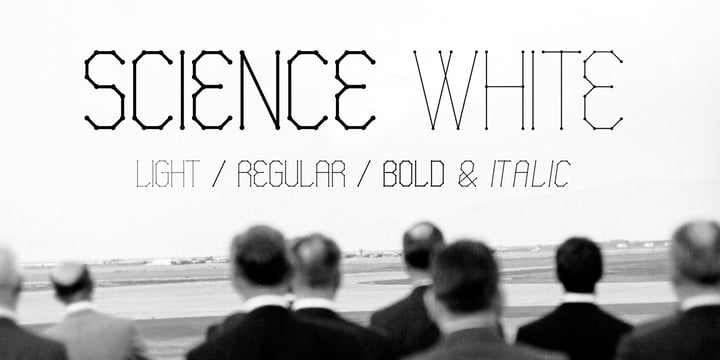
About Science White Font Family
Science White is the version of Science Noire without the spider web. Available in 3 weights + Italic. Made to match with Science Noire. Easy to use for your artworks and your common works. Science White is available in single weights or in a full package with a special price. Last but not least we launch a special “Sciences” pack with all Science fonts (White all weights and Noire).